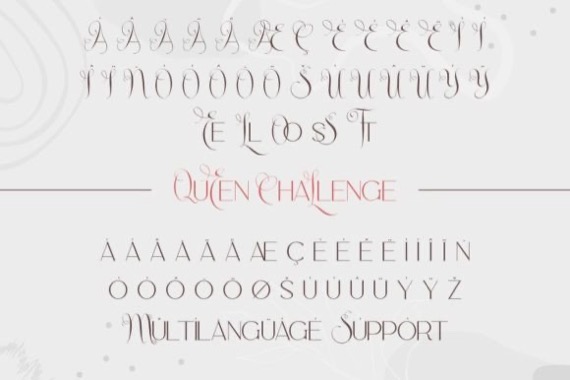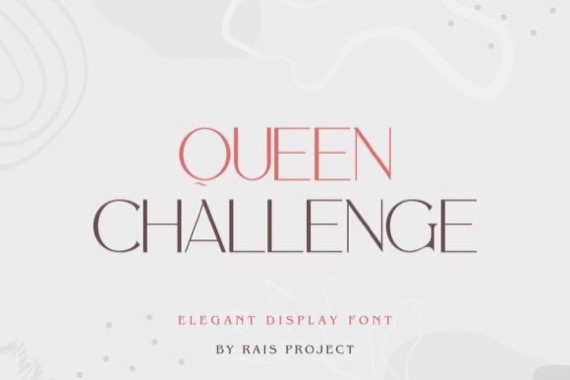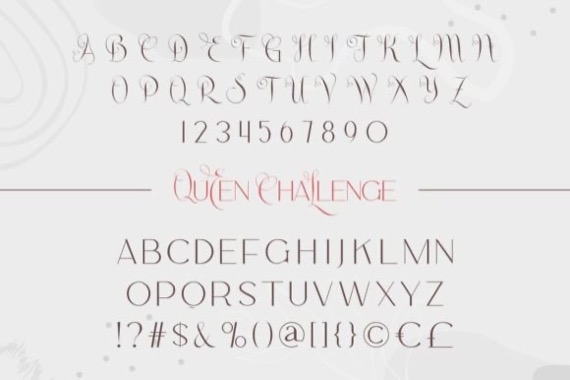
Introducing Queen Challenge Font by RaisProject, it is a luxurious serif font with beautiful style. This beautiful font will work well for a variety of designs you create, such as business cards, greeting cards, invitations, brand logos, labels, posters, custom designs, product packaging, web pages, quotes and so much more.
Queen Challenge Serif Font